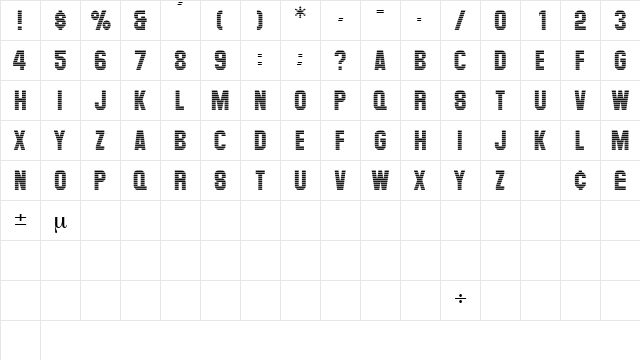
LevelorDisplayCapsSSK Regular Font Preview
LevelorDisplayCapsSSK Regular
Design Context for LevelorDisplayCapsSSK Typeface
LevelorDisplayCapsSSK brings ornamental detail and strong personality to headlines and identities, where visual impact matters more than quiet functionality.
Font Pairing: Pair with a clean neutral sans-serif for body copy to let LevelorDisplayCapsSSK's character lead without overwhelming the composition.
Pro Tip: Use LevelorDisplayCapsSSK exclusively at display sizes — it was designed to be seen, not read at length. Let a neutral companion handle body copy.